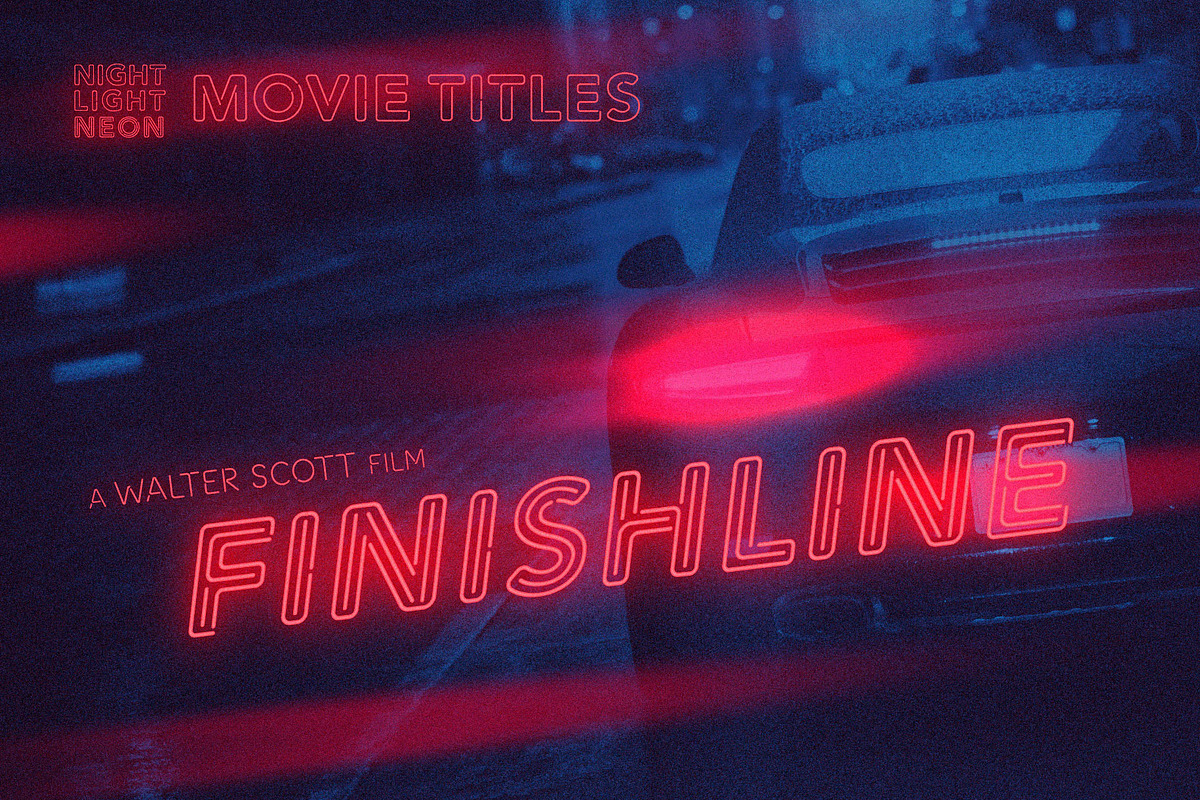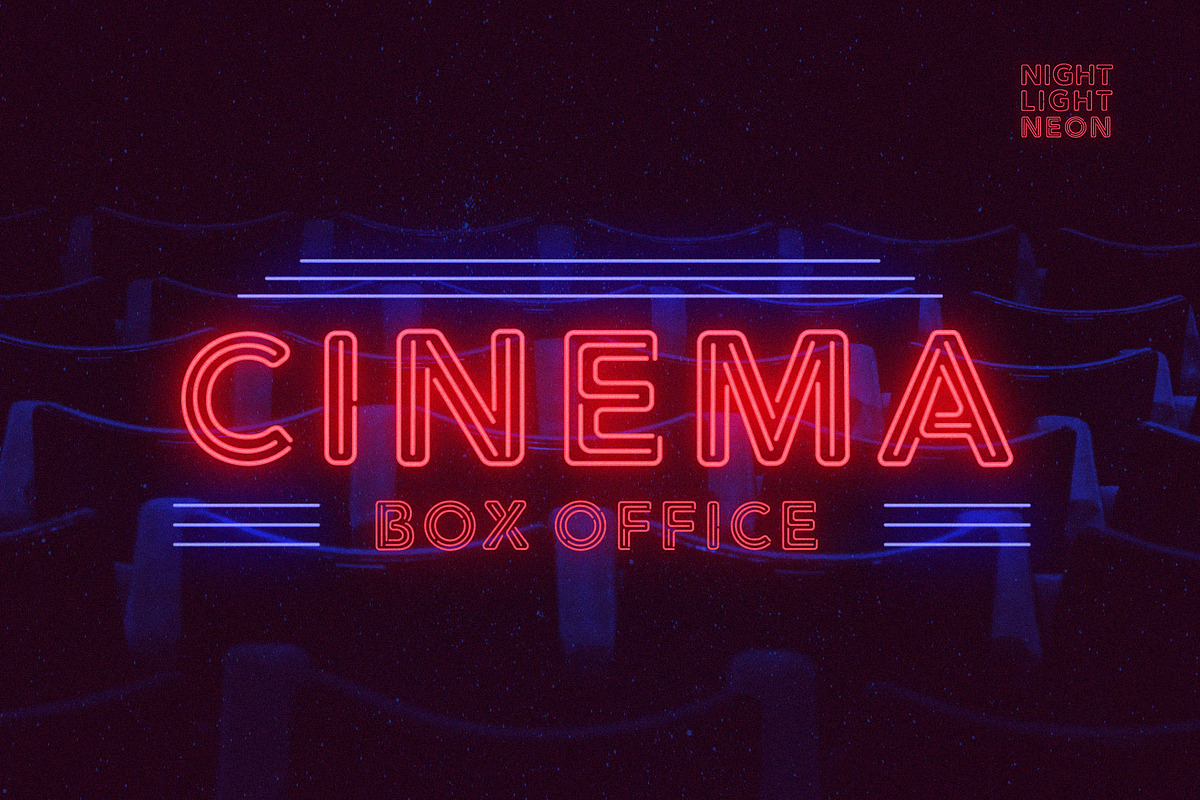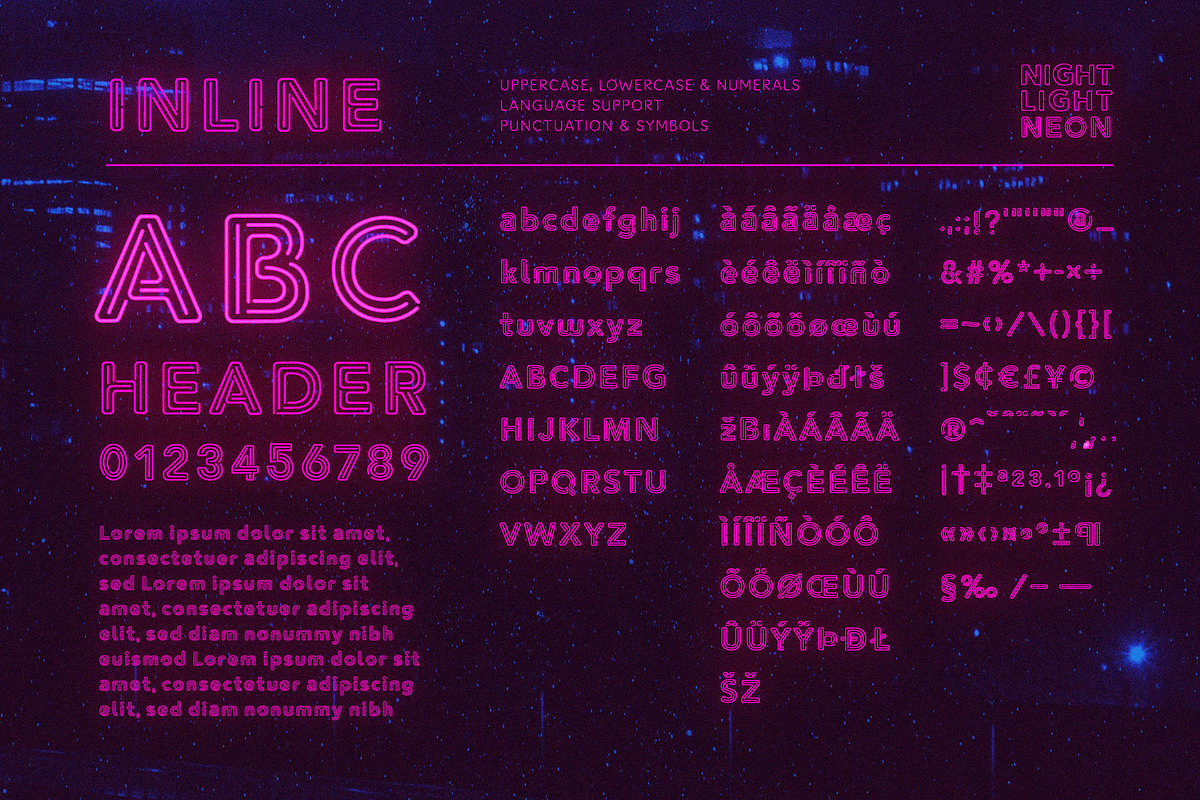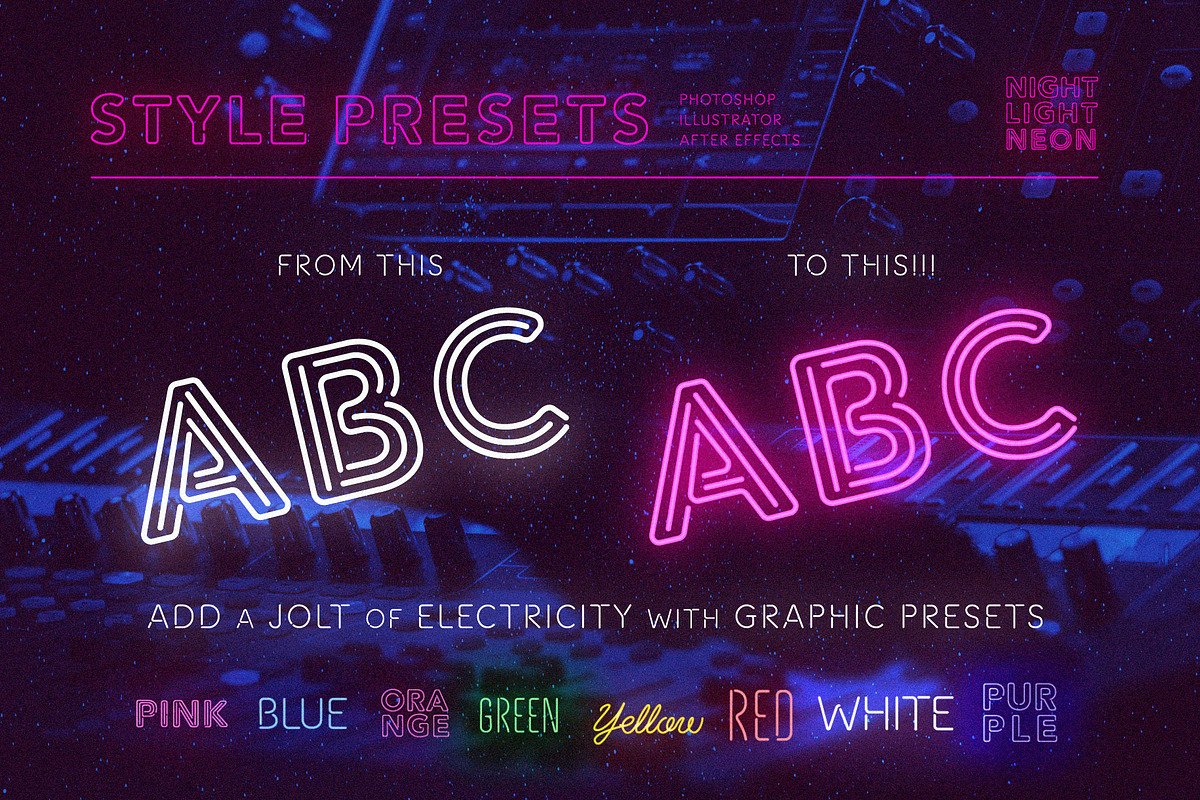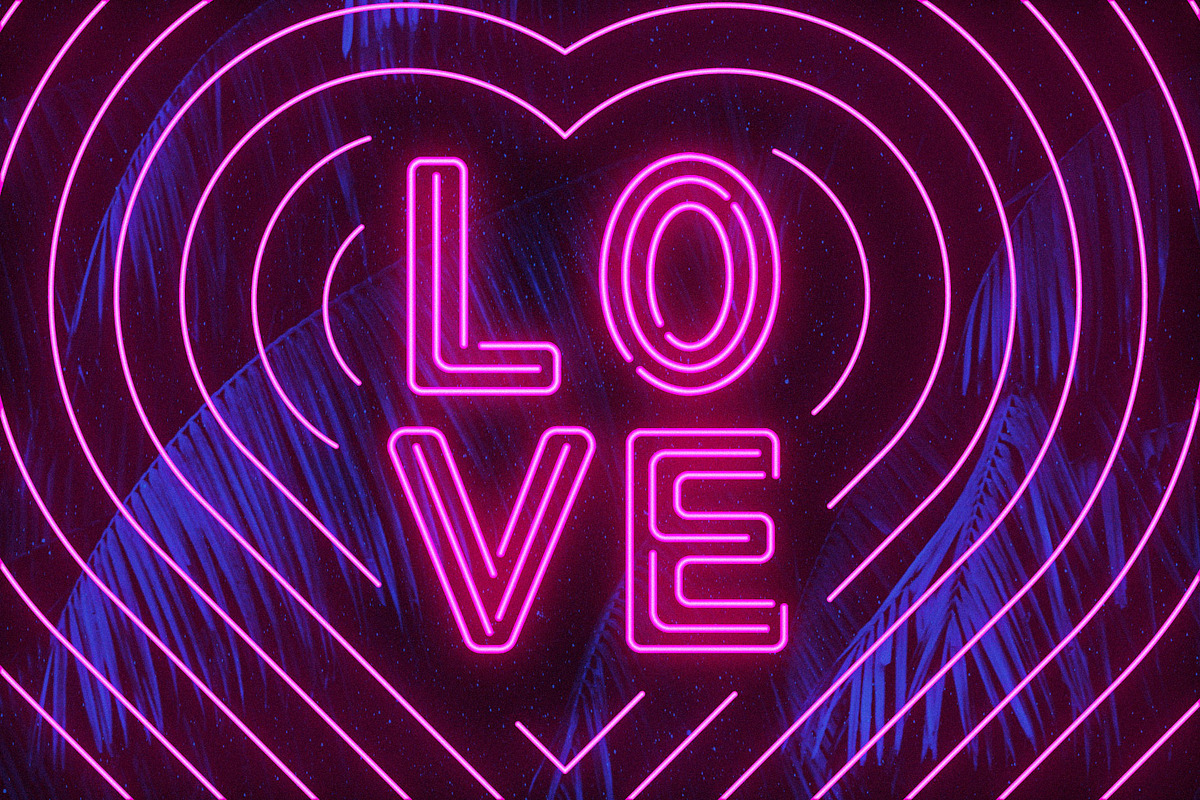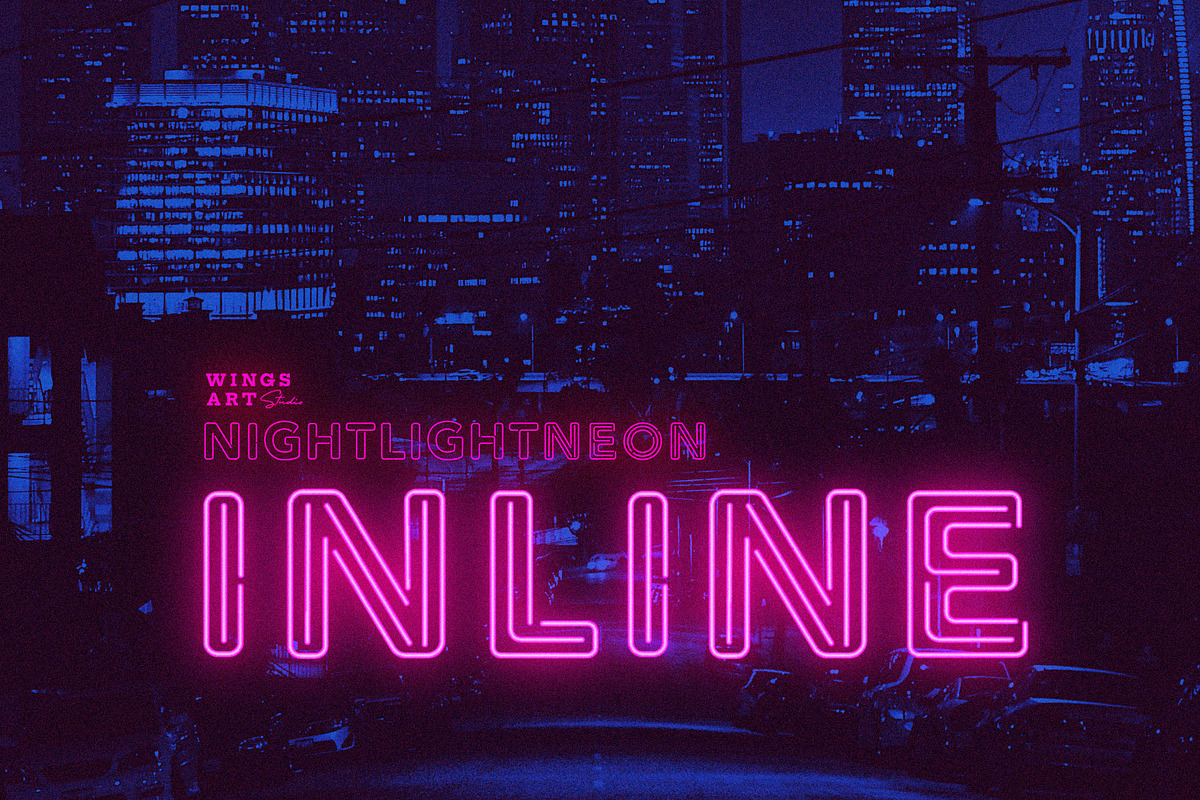
Retro Neon Font - Inline Style
NIGHT LIGHT NEON - INLINE FONT STYLE
A specially crafted neon inspired font giving designers the power to replicate traditionally hand-made lettering from the comfort of their computer.
ACHIEVE AN AUTHENTIC NEON LOOK
This Inline style font works great as a headline for music promotion, film titles, Youtube tutorials and gig posters, and when combined with the included graphic presets achieves a truly realistic neon look.
Night Light Neon - Inline Font
Uppercase and lowercase letters, numbers, punctuation and language support.